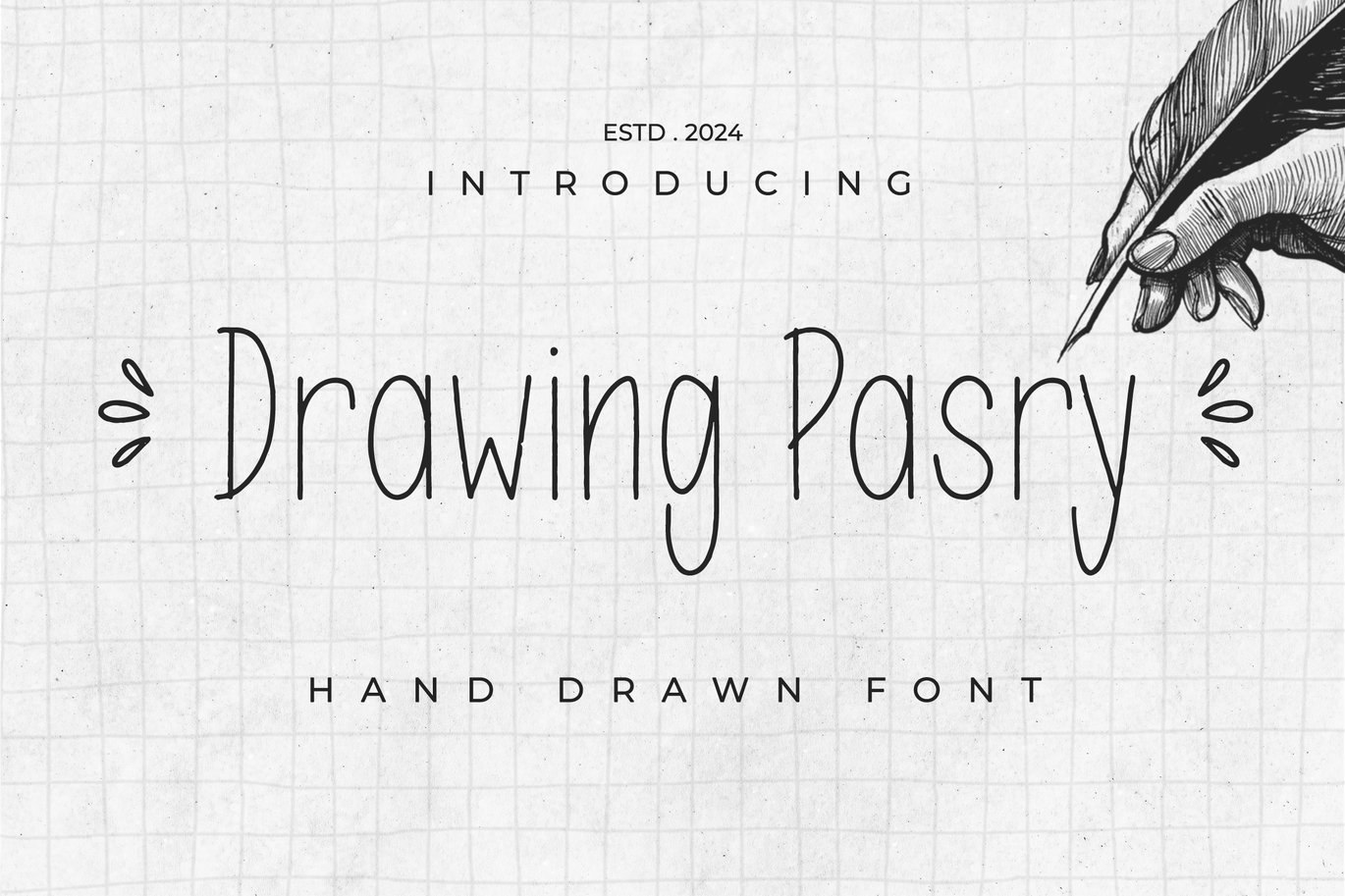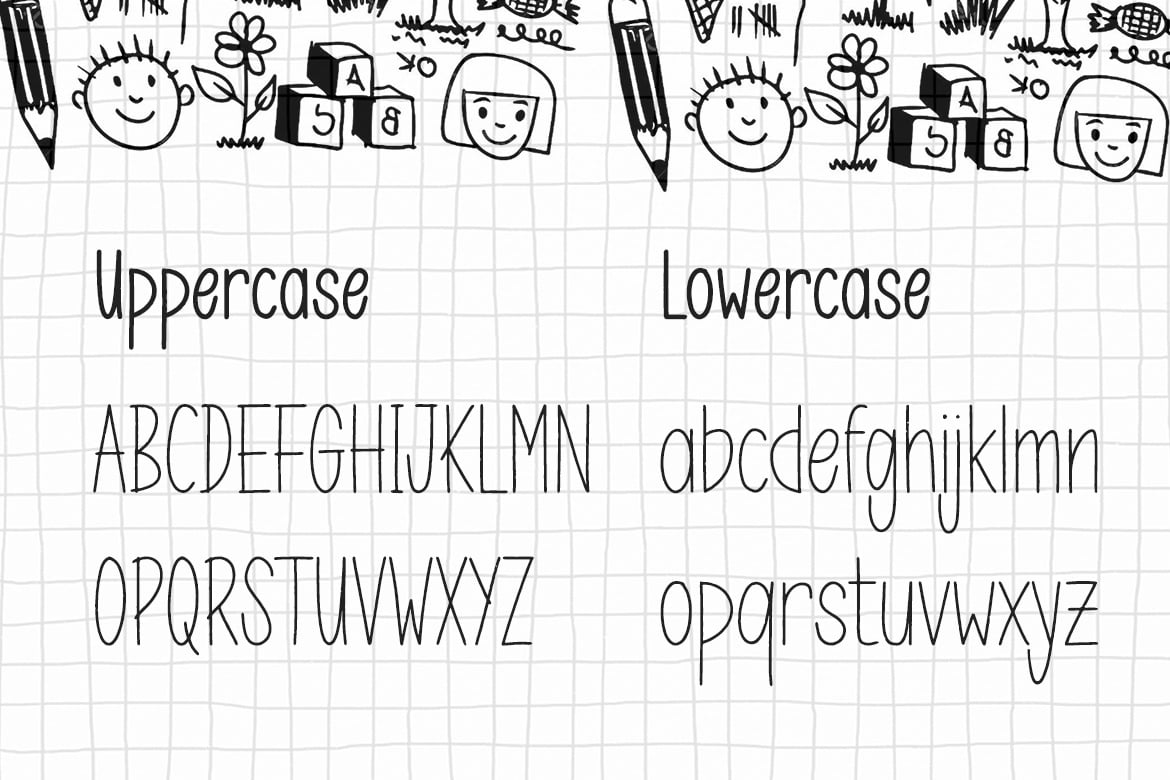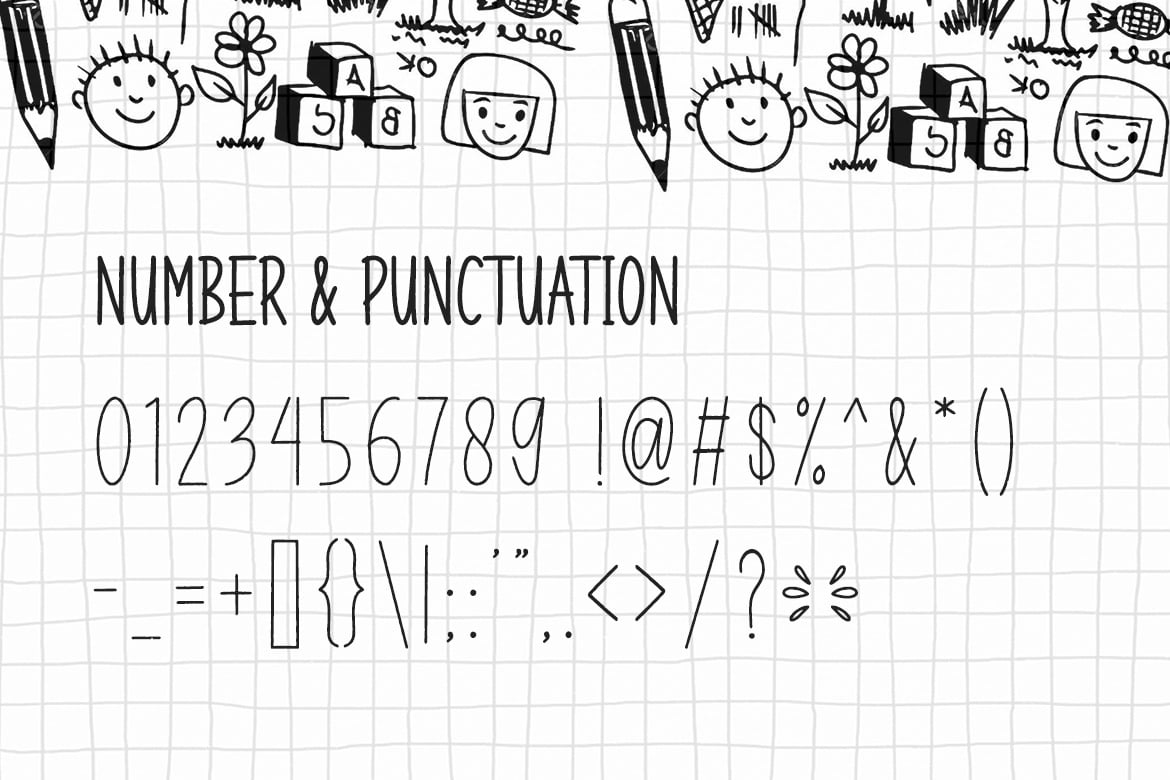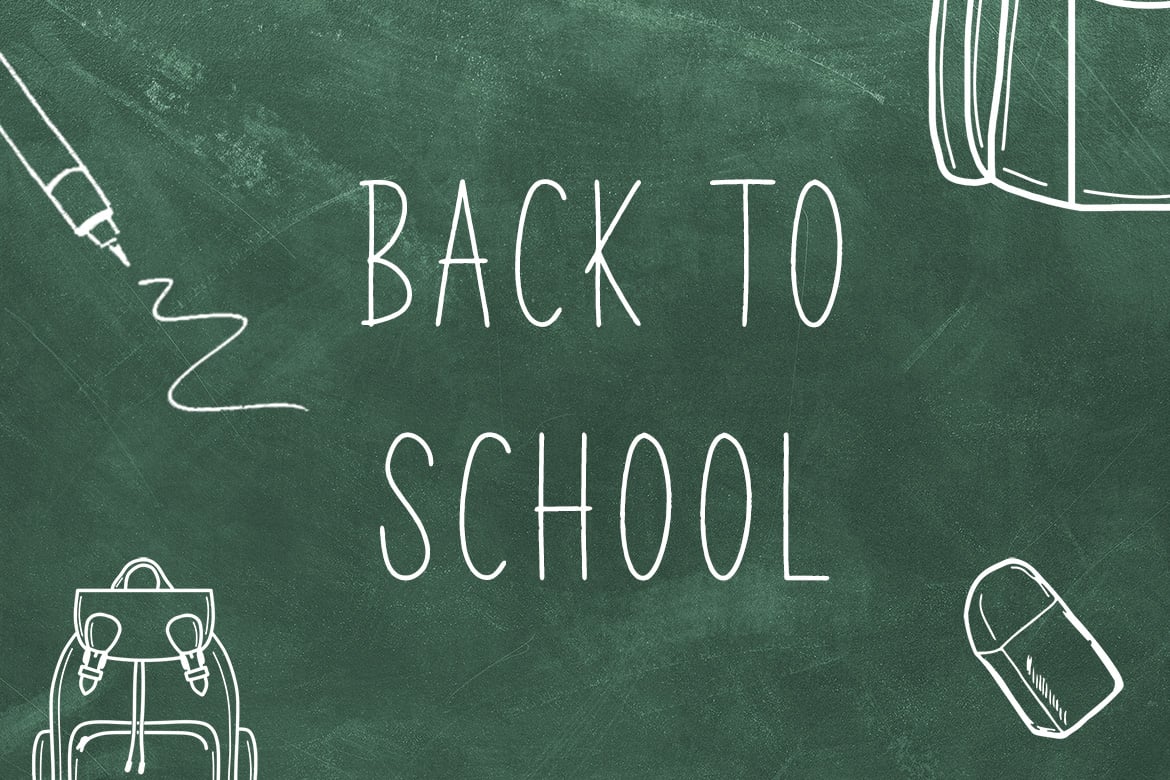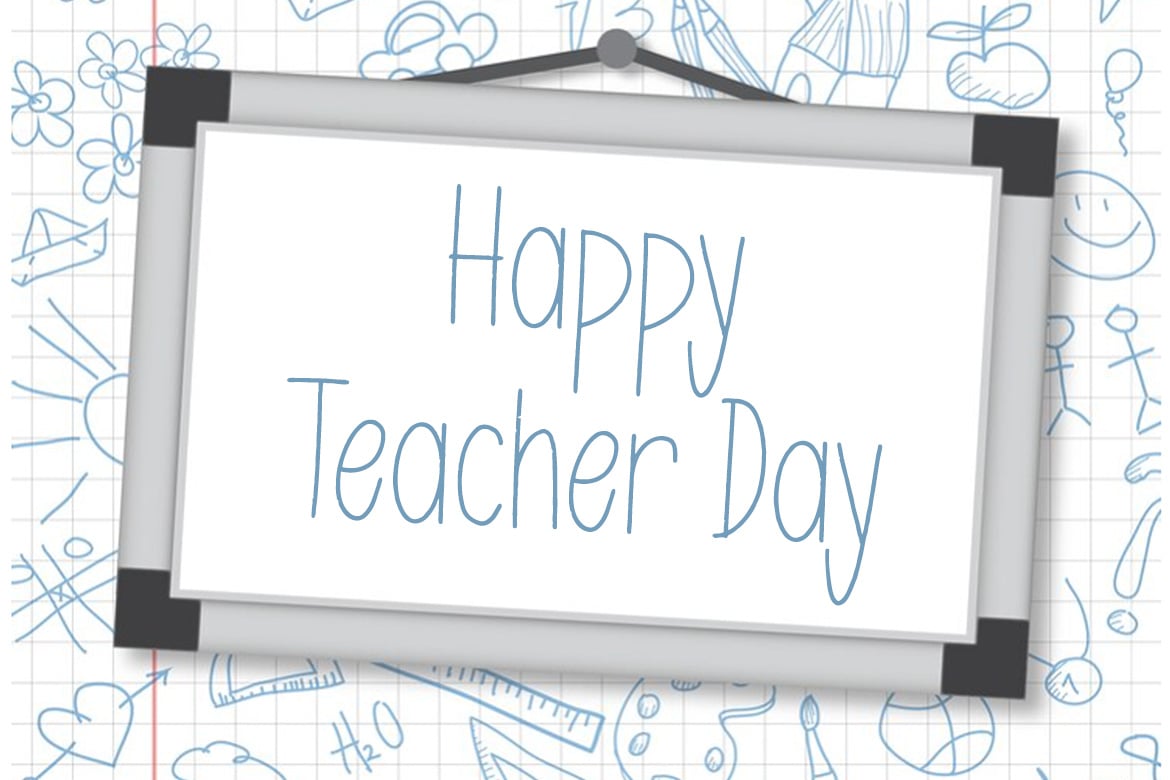
Drawing Pasry – Hand Draw Display Font
Drawing Pasry is a unique display typeface perfect for titles, large text, branding, logotypes & graphic design purposes such as posters, pamphlets, and advertisements. This letter font can be a great choice for creating amazing logos, promotional content, and marketing presentations that can bring uniqueness and freshness at its best.
Uppercase and Lowercase letters
Numbering and Punctuations